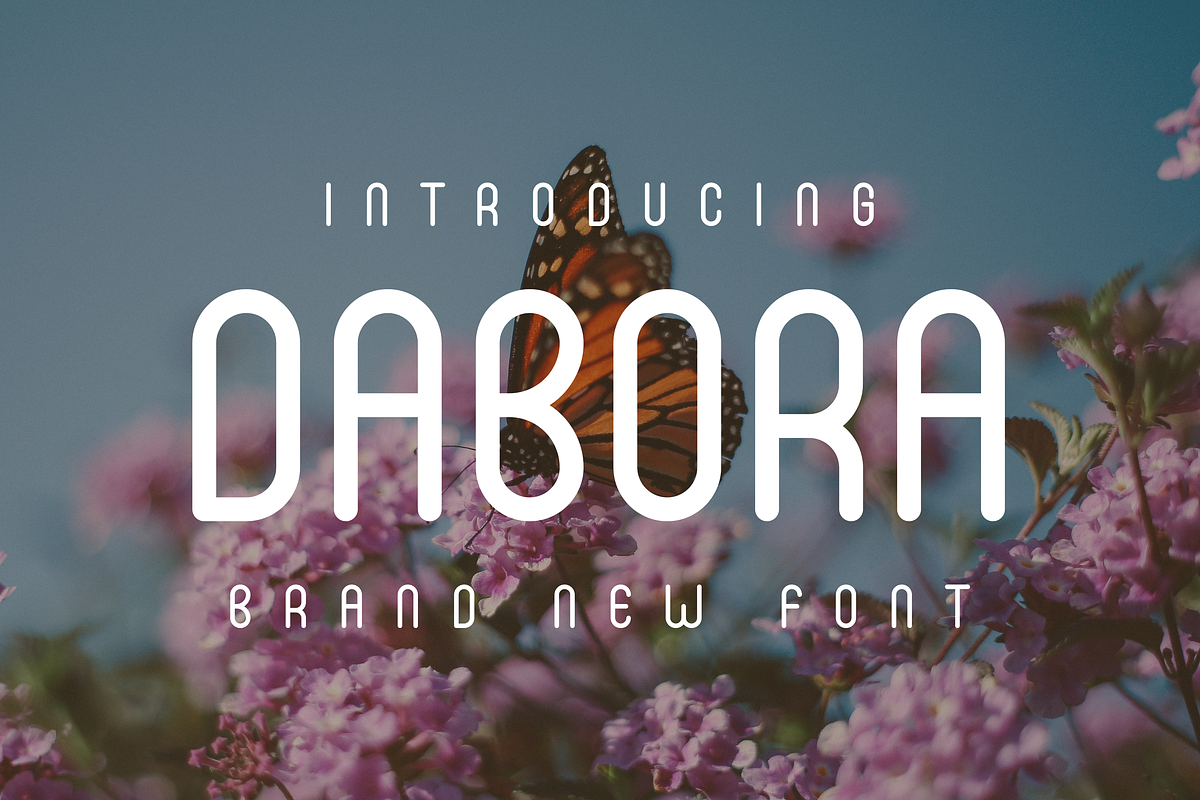
Dabora Free Download
Dabora Font Free Download
The Dabora Font Free Download is a stylish and contemporary typeface with a bold, geometric flair. Designed for modern branding, editorial design, packaging, and fashion-forward projects, Dabora offers a strong visual presence with clean lines and sharp, distinctive shapes.
Its unique structure makes it perfect for headlines, logos, and striking display use, while still maintaining readability. Dabora includes uppercase and lowercase letters, numbers, punctuation, and multilingual support—making it a versatile choice for designers looking to make a sleek, modern impact.